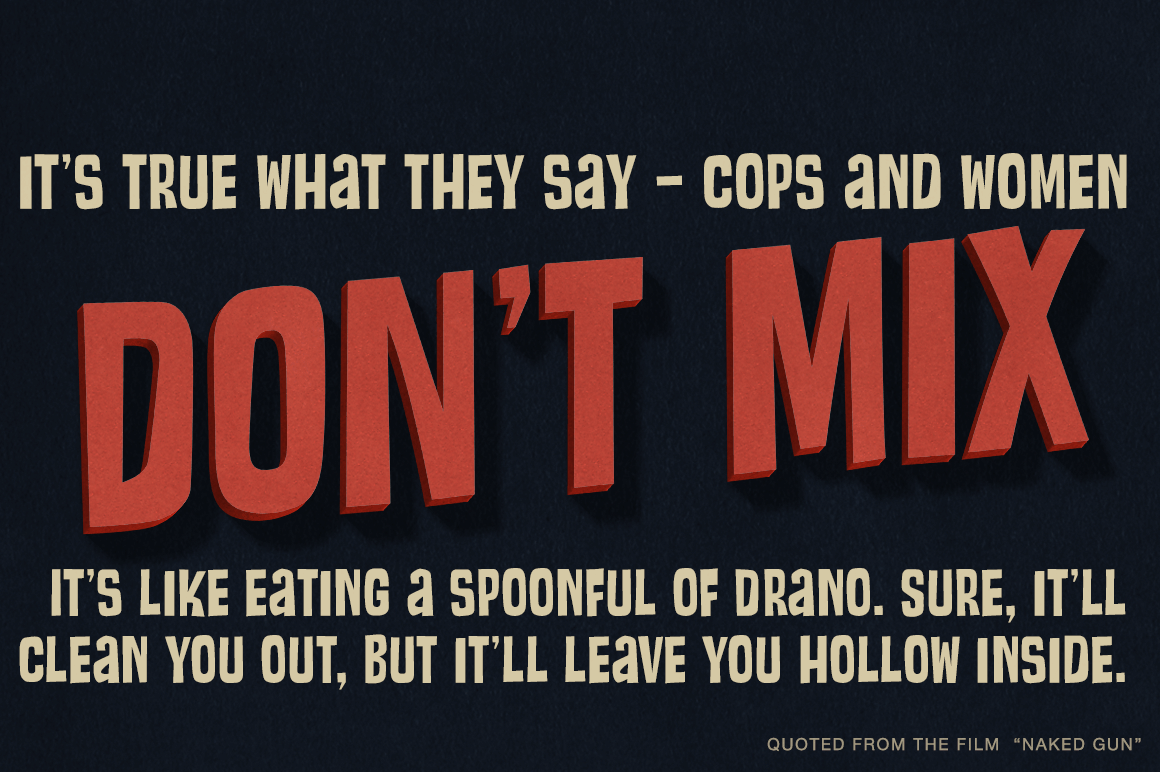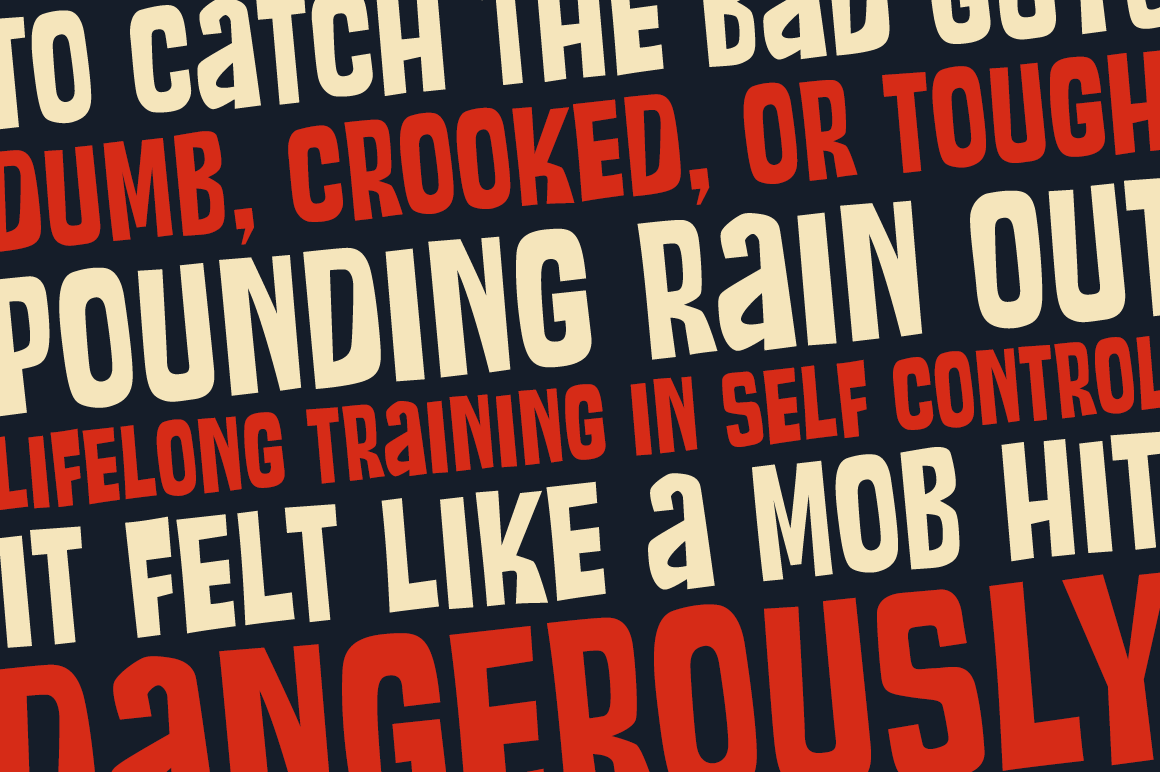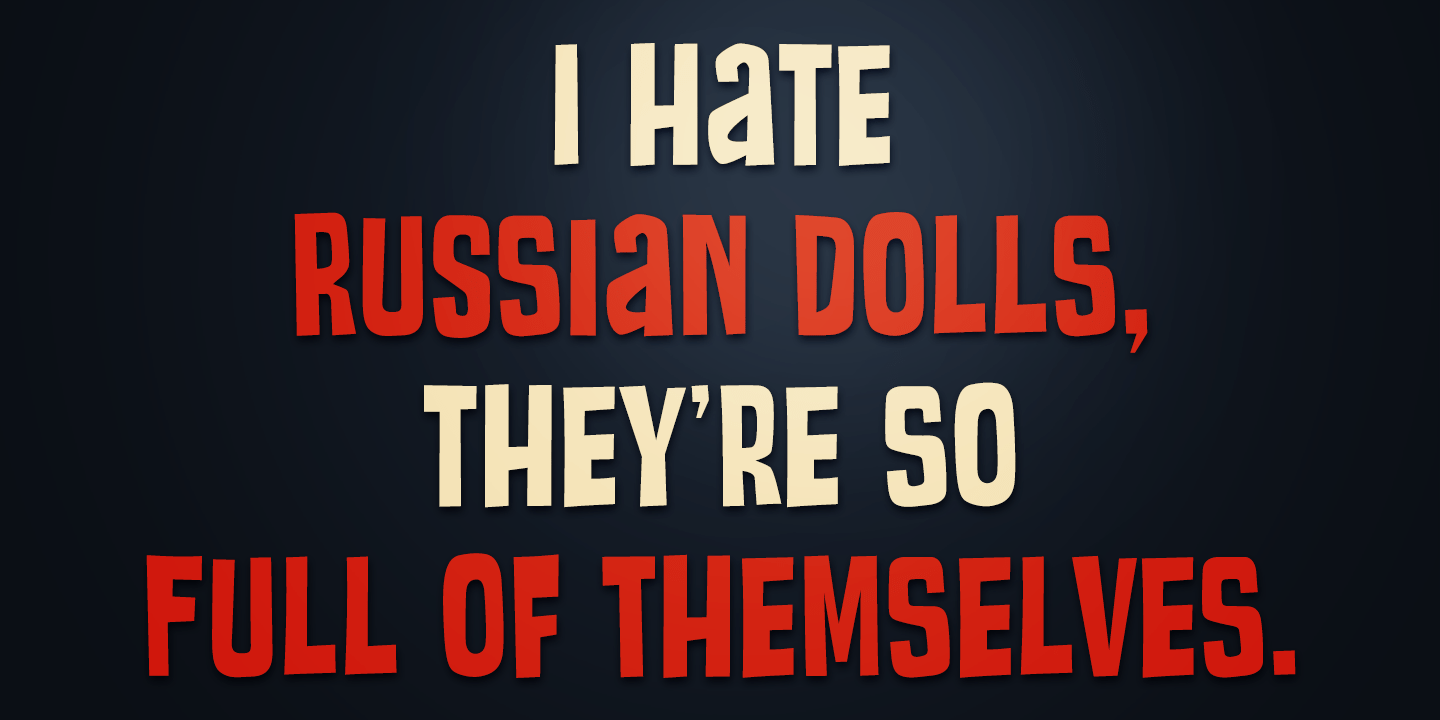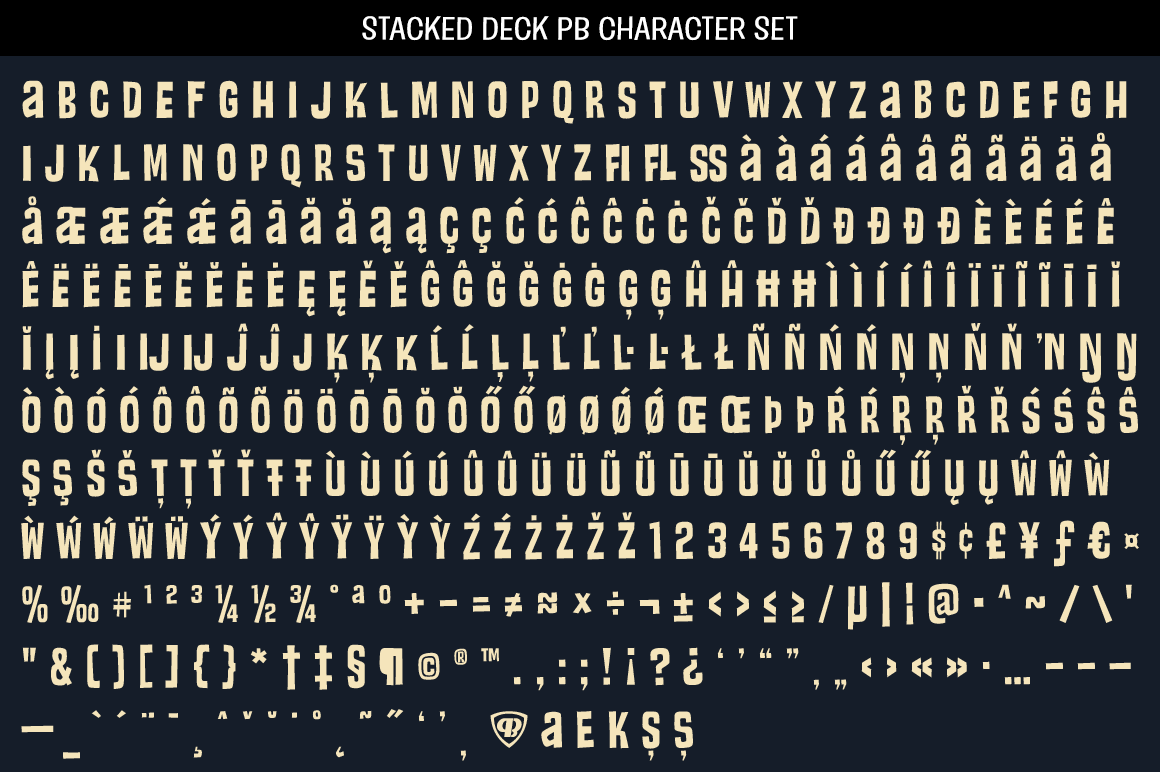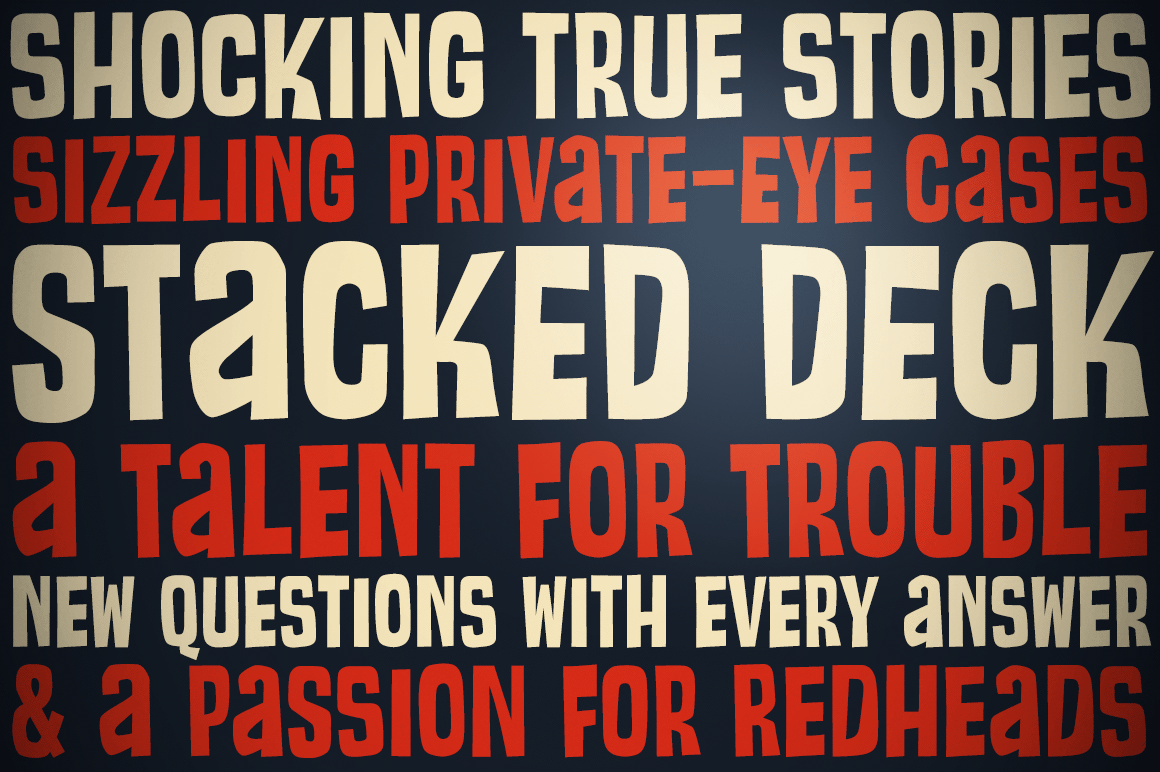
Stacked Deck PB
About Stacked Deck PB
Stacked Deck is a retro typestyle inspired by an old private eye pulp paperback of the same name, and it expands on the title to dance on screen or in print. Let the cards fall in your favor with Stacked Deck in your playful typeface design collection.…